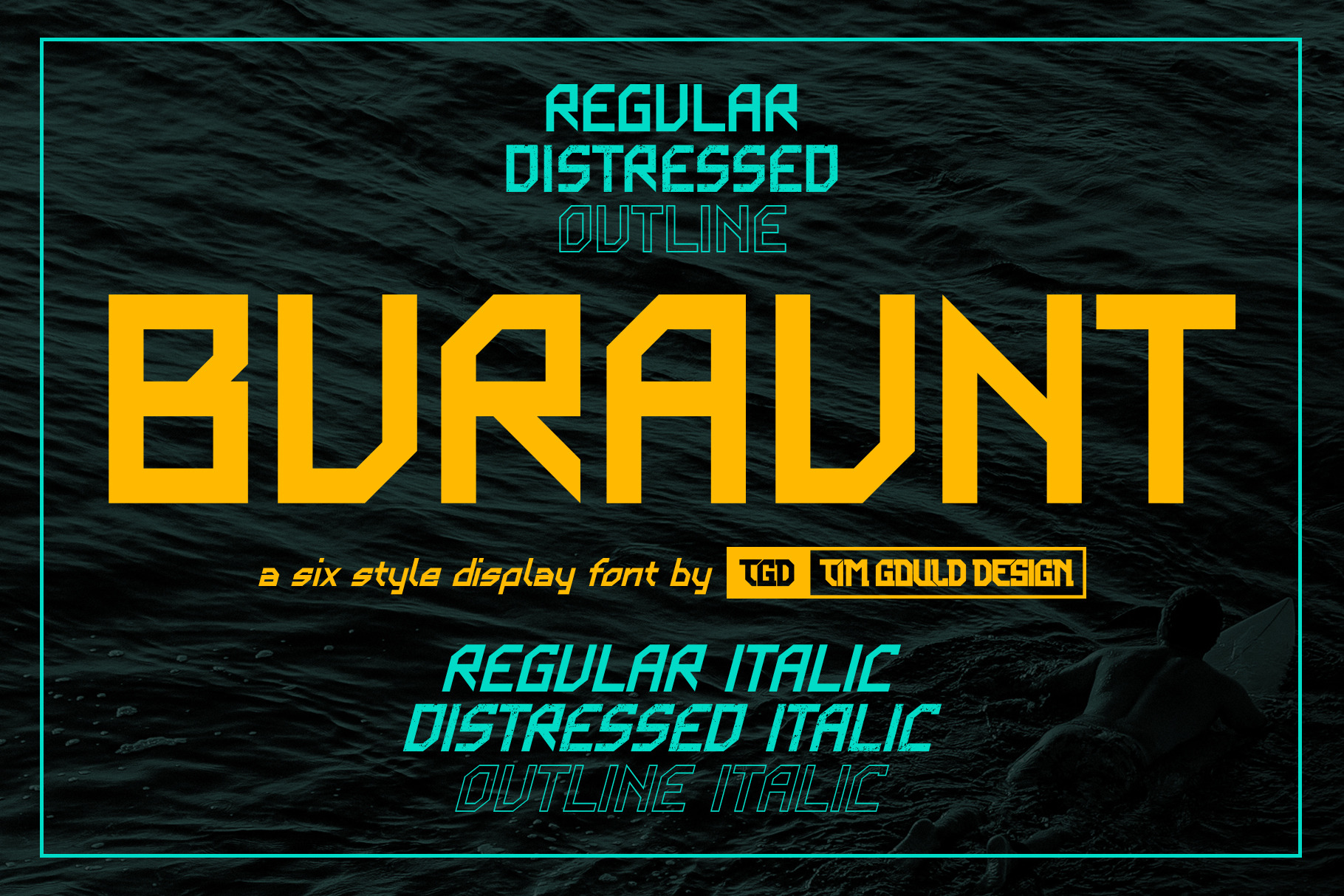
Buraunt - San Serif Display Font
Buraunt A vector sans serif display font with six styles: Regular, Distressed, Outline, Regular Italic, Distressed Italic, and Outline Italic. A perfect font for sports design, posters, logos, packaging labels, t-shirts, and more.
- Capital and lowercase letters
- Symbols and punctuation: !@#$%^&*()-_=+{}[]/|:;'".,?